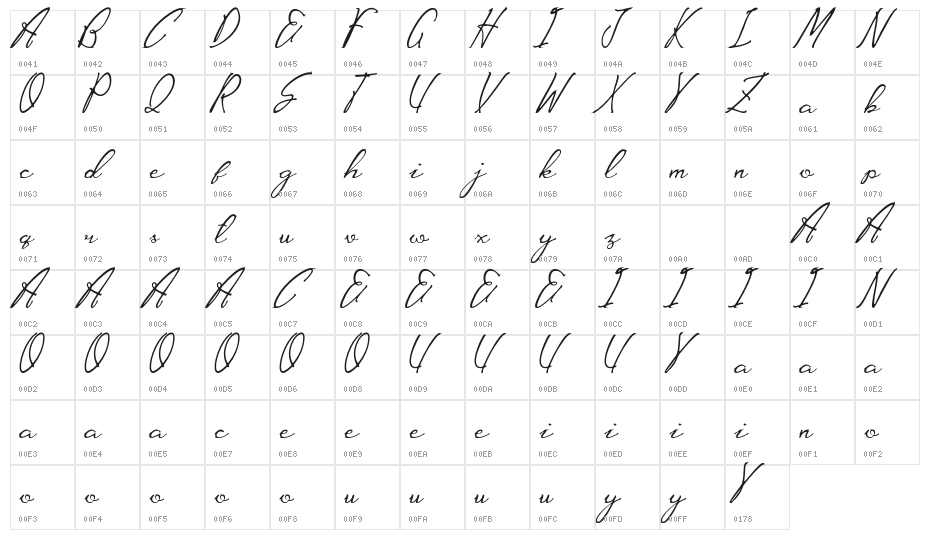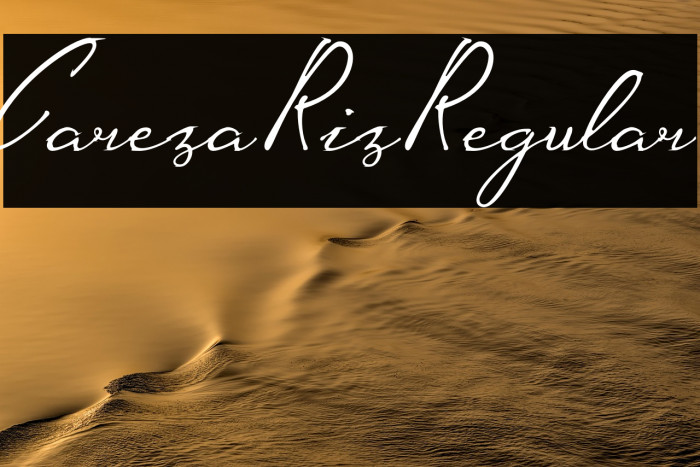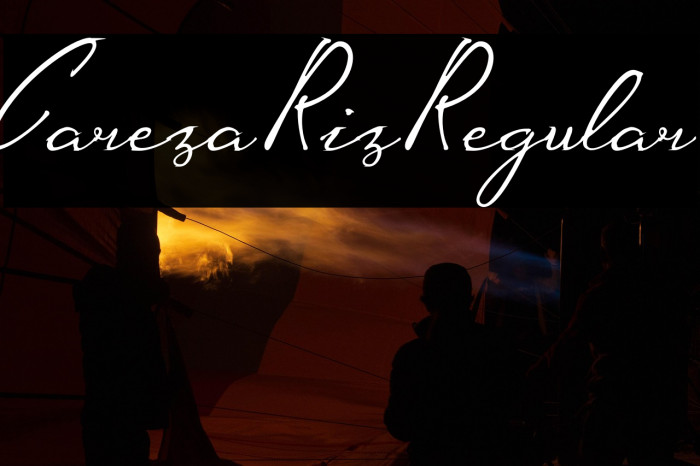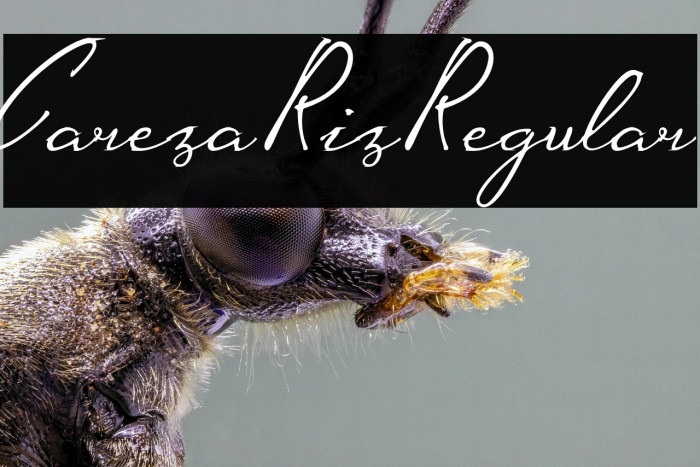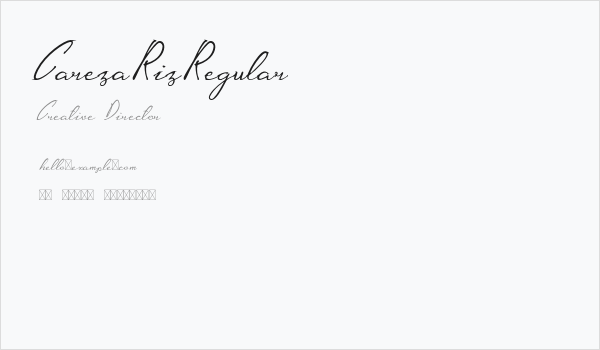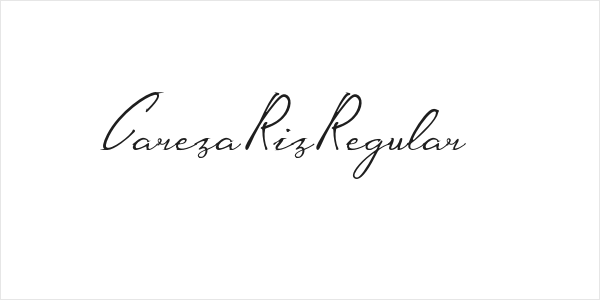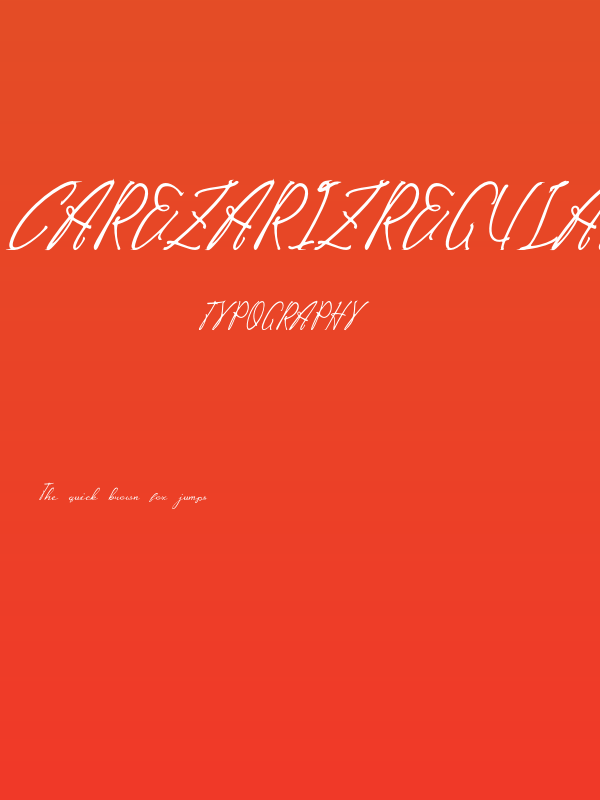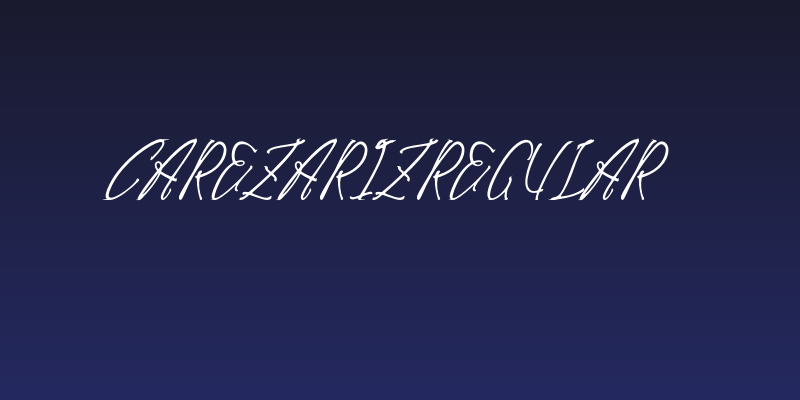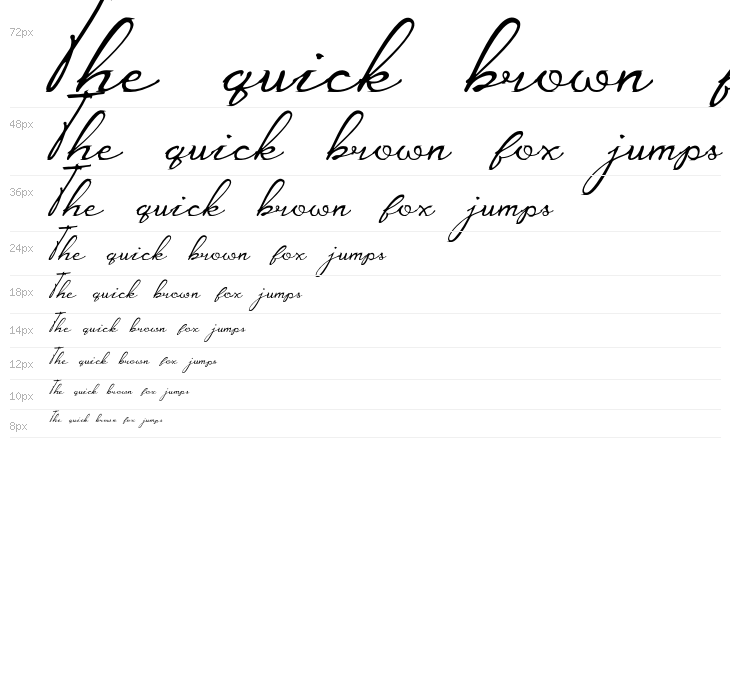
CarezaRizRegular Font
CarezaRizRegular Description
This font features an elegant, flowing script style with a handwritten appearance. The uppercase letters are tall and slightly slanted, giving a sense of sophistication and movement. The lowercase letters maintain a consistent flow, with smooth curves and connections between characters. The overall look is both stylish and legible, making it suitable for a variety of design applications. The special characters are creatively integrated, maintaining the font's unique style. This font is ideal for projects that require a personal touch or a sense of elegance.
| Overall Style | Elegant, Handwritten |
| Proposed Projects | Ideal for wedding invitations, greeting cards, personal branding, and elegant logos. |